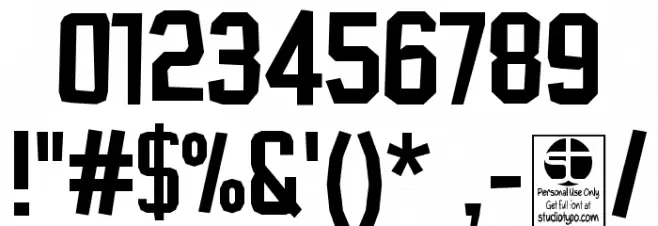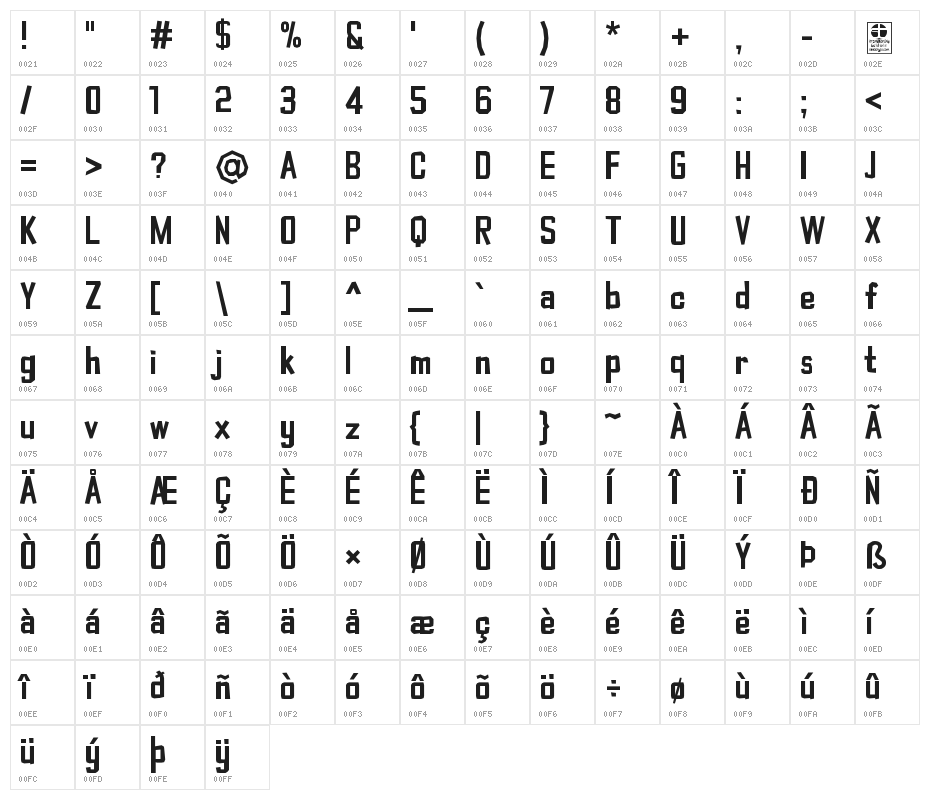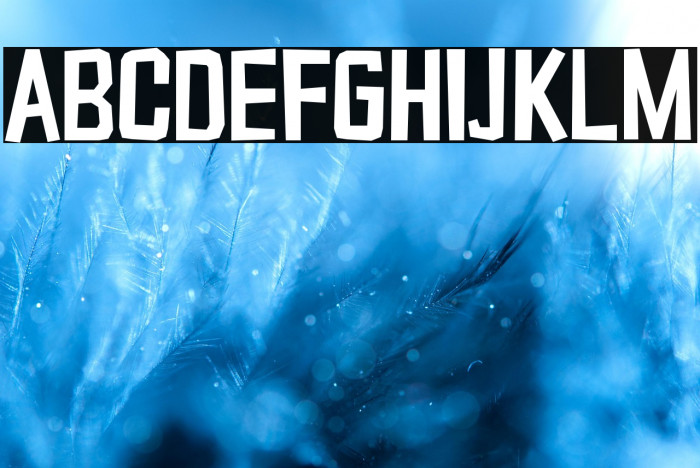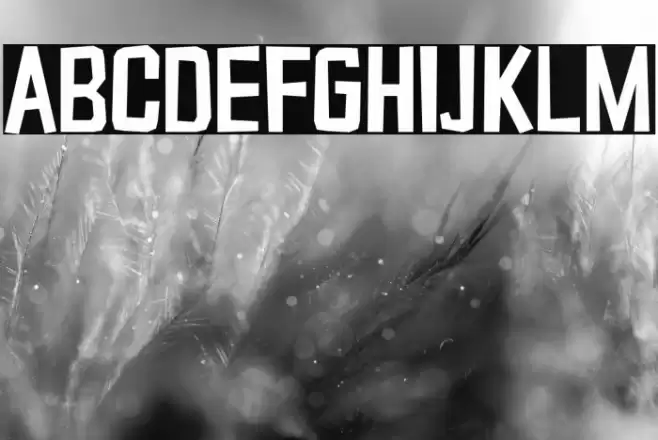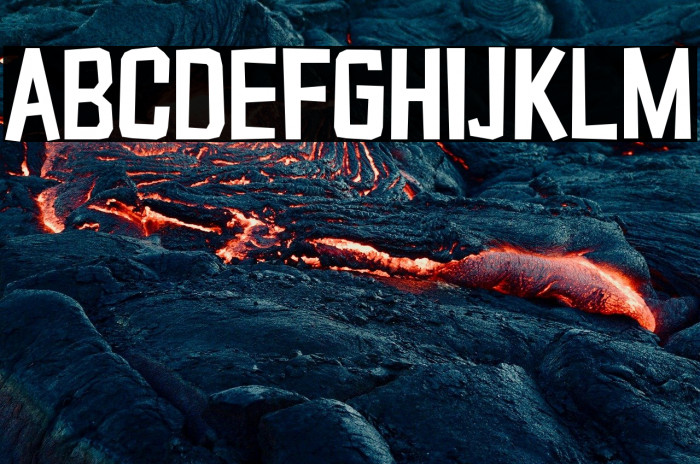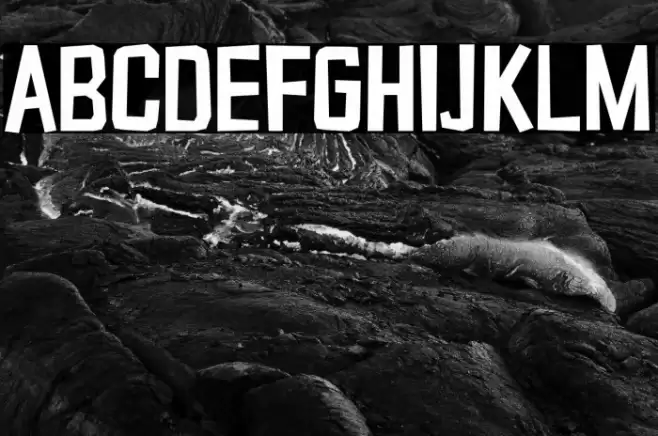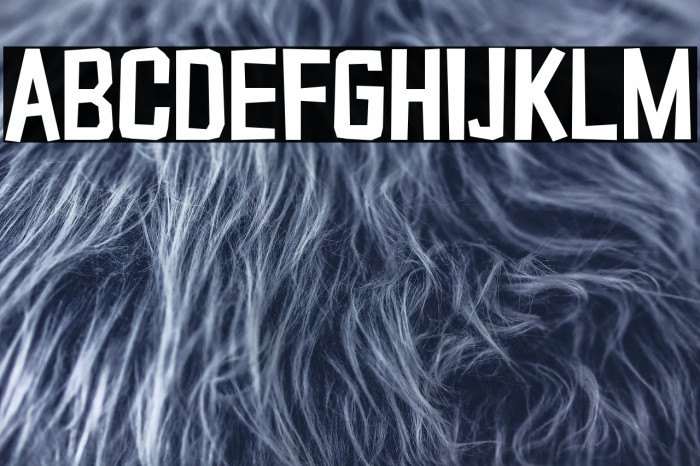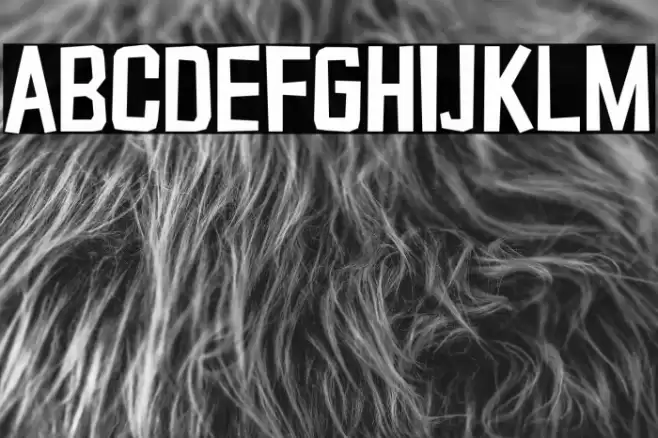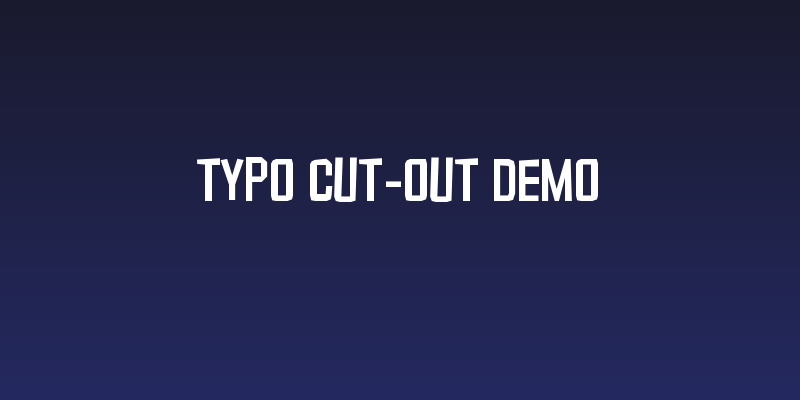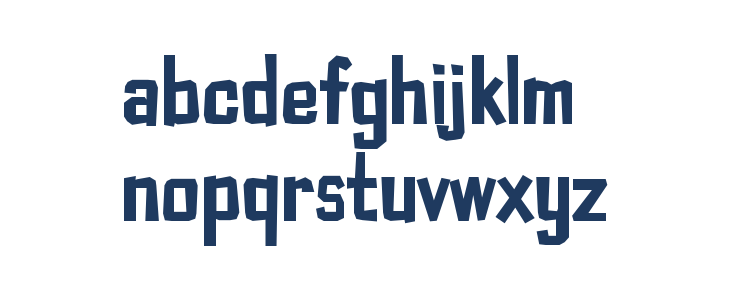
Typo Cut-Out Demo Font
Typo Cut-Out Demo Description
This font features a bold, cut-out style with irregular edges, giving it a handmade, artistic appearance. The uppercase and lowercase letters maintain a consistent height, creating a uniform look. The numerals are bold and match the style of the letters, ensuring cohesion across all characters. Special characters are included, maintaining the same cut-out aesthetic. The font's unique style makes it stand out, with its bold presence and slightly uneven lines adding to its charm. It's suitable for projects that require a creative and distinctive look.